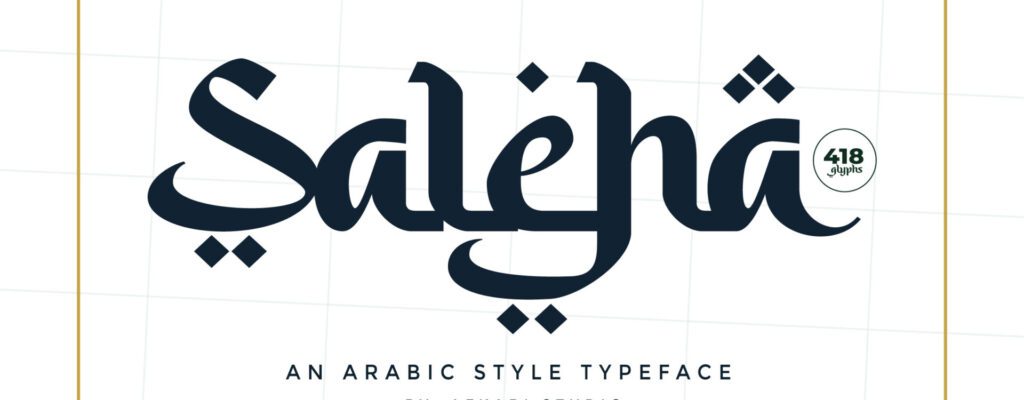
Saleha – An Arabic Style Typeface
NEW Ramadan and Islamic font, Saleha, is an Arabic-styled display typeface. This Islamic Ramadhan Arabic font is perfect for any graphic design related to the Islamic or Arabic style. You will get an Arabic feel to every text you type using this font. Made with Latin characters so that it can be read internationally which does not have to be able to read Arabic characters